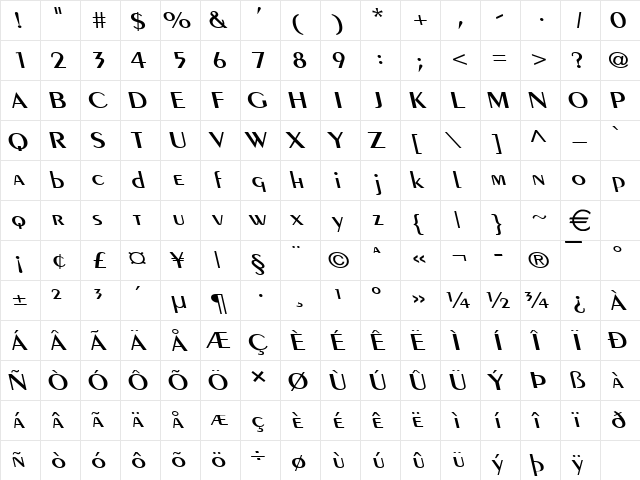
PareWideReverse Italic
Design Context for PareWideReverse Typeface
PareWideReverse is a composed and adaptable typeface that performs quietly and consistently across a wide range of design contexts. The dynamic lean of this cut emphasises speed and emphasis in any layout.
Pro Tip: Use PareWideReverse for emphasis, pull quotes, and subheadings where its slanted energy can add rhythm to the layout.